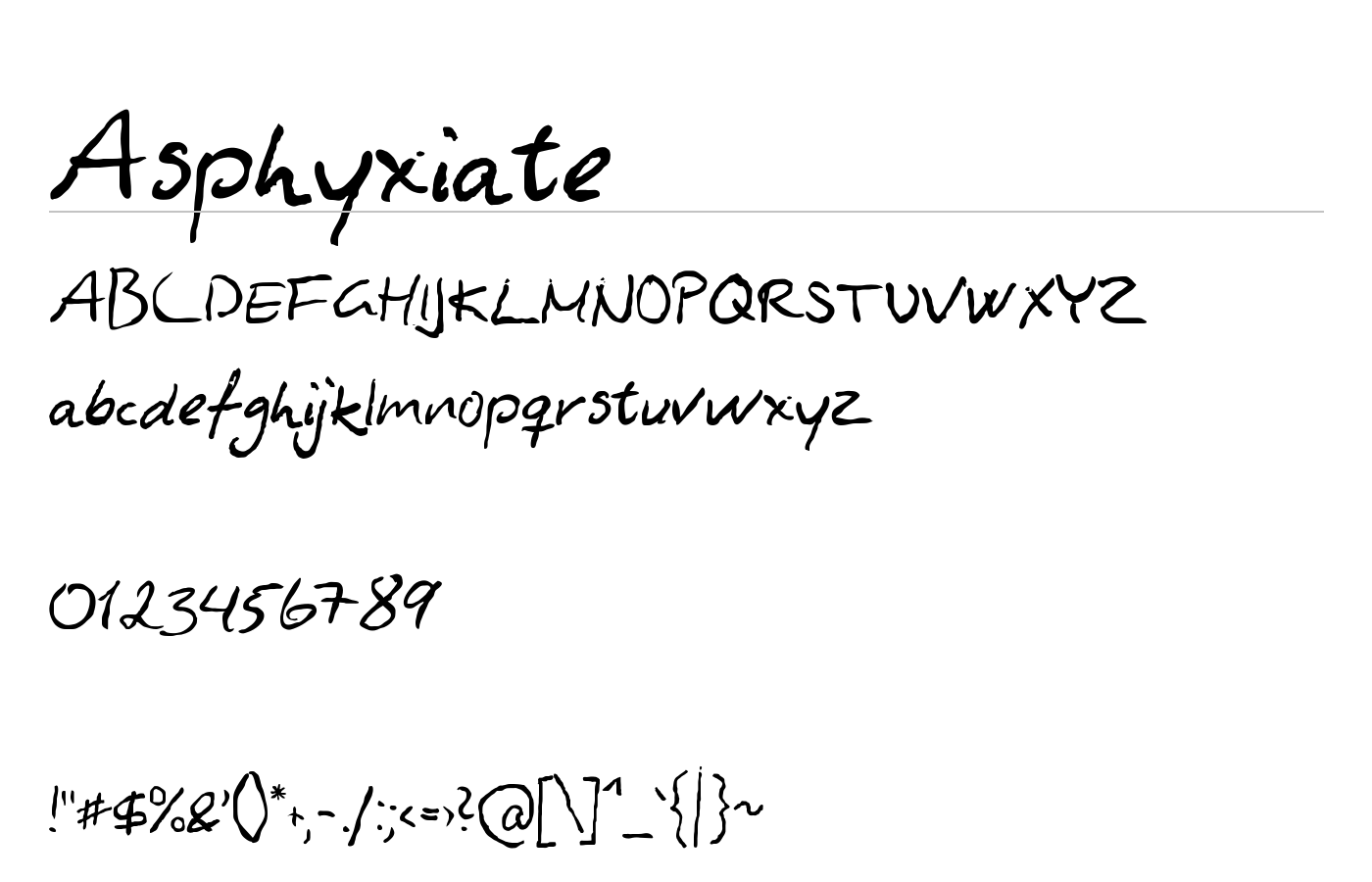
Asphyxiate is a casual, handwritten-style font that features a loose and organic feel with irregular strokes and varying thicknesses, giving it a personal and slightly edgy character. Its medium weight and normal width combined with playful, somewhat rough letterforms make it perfect for projects needing a spontaneous, authentic touch like personal branding, informal invitations, or creative editorial layouts. This font works well where a natural, expressive vibe is desired to convey individuality and creativity.
Asphyxiate Font
| Designer | Espen Kvalheim |